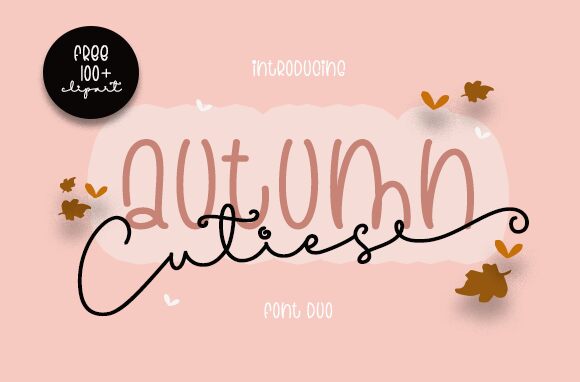
Cuties, designed by Danar Nugroho, is a charming handwritten font that exudes a delightful and whimsical aura. With its light weight, Cuties adds a touch of playfulness to any project, making it suitable for various creative endeavors.
Whether you're working on children's books, greeting cards, or designing cute and vibrant websites, this font will captivate your audience with its endearing charm. Embrace the cuteness of Cuties and infuse your projects with an enchanting allure that will leave a lasting impression.